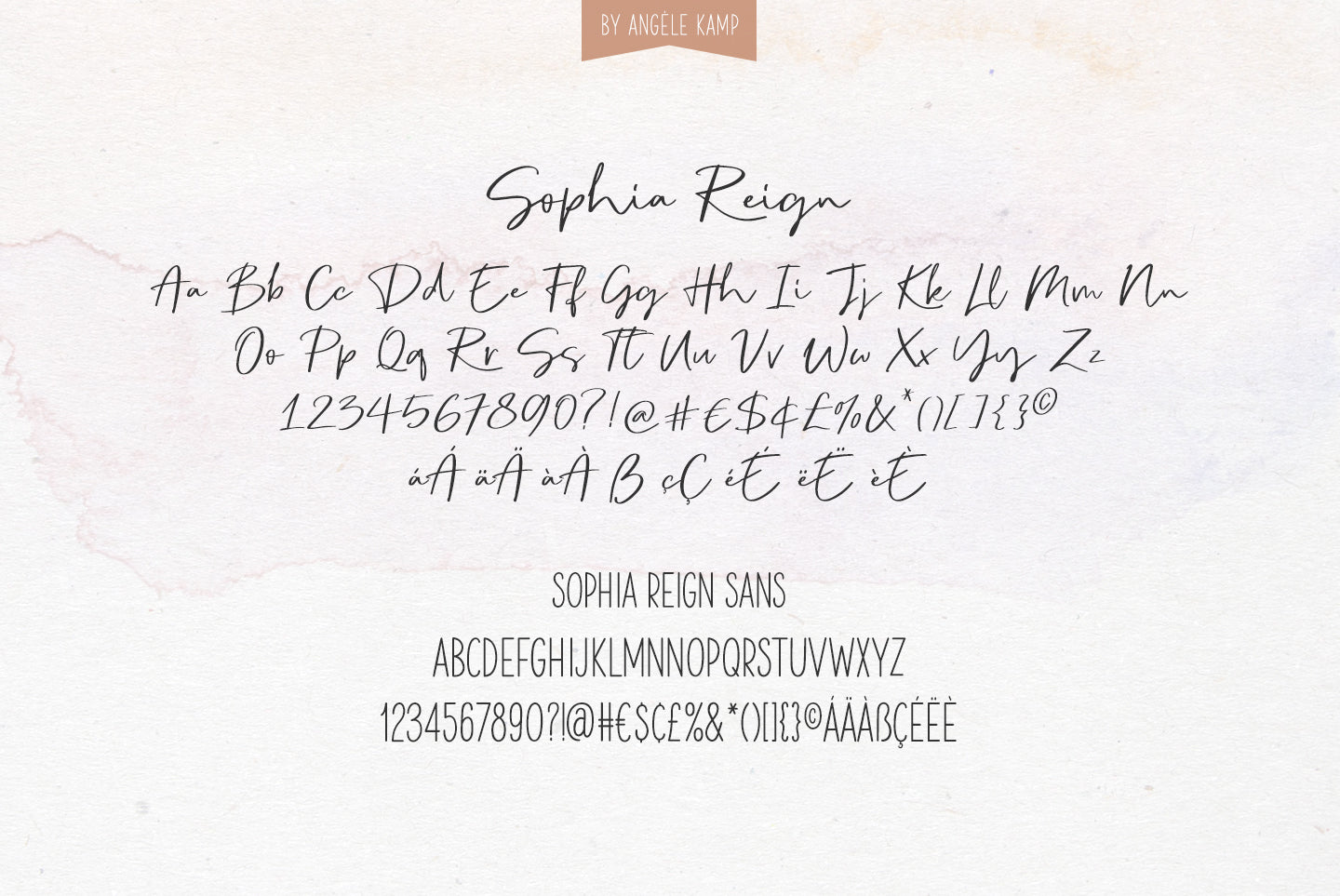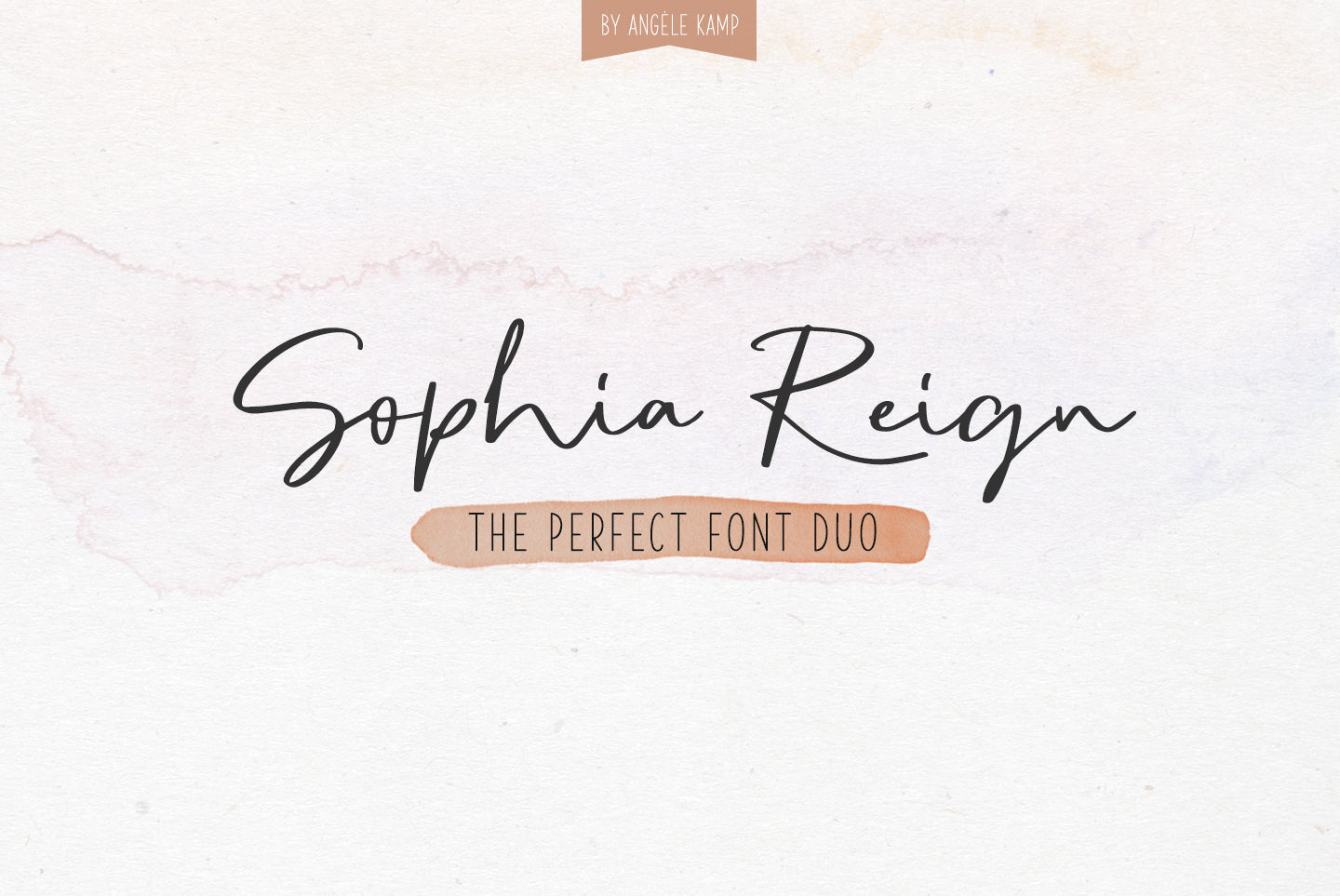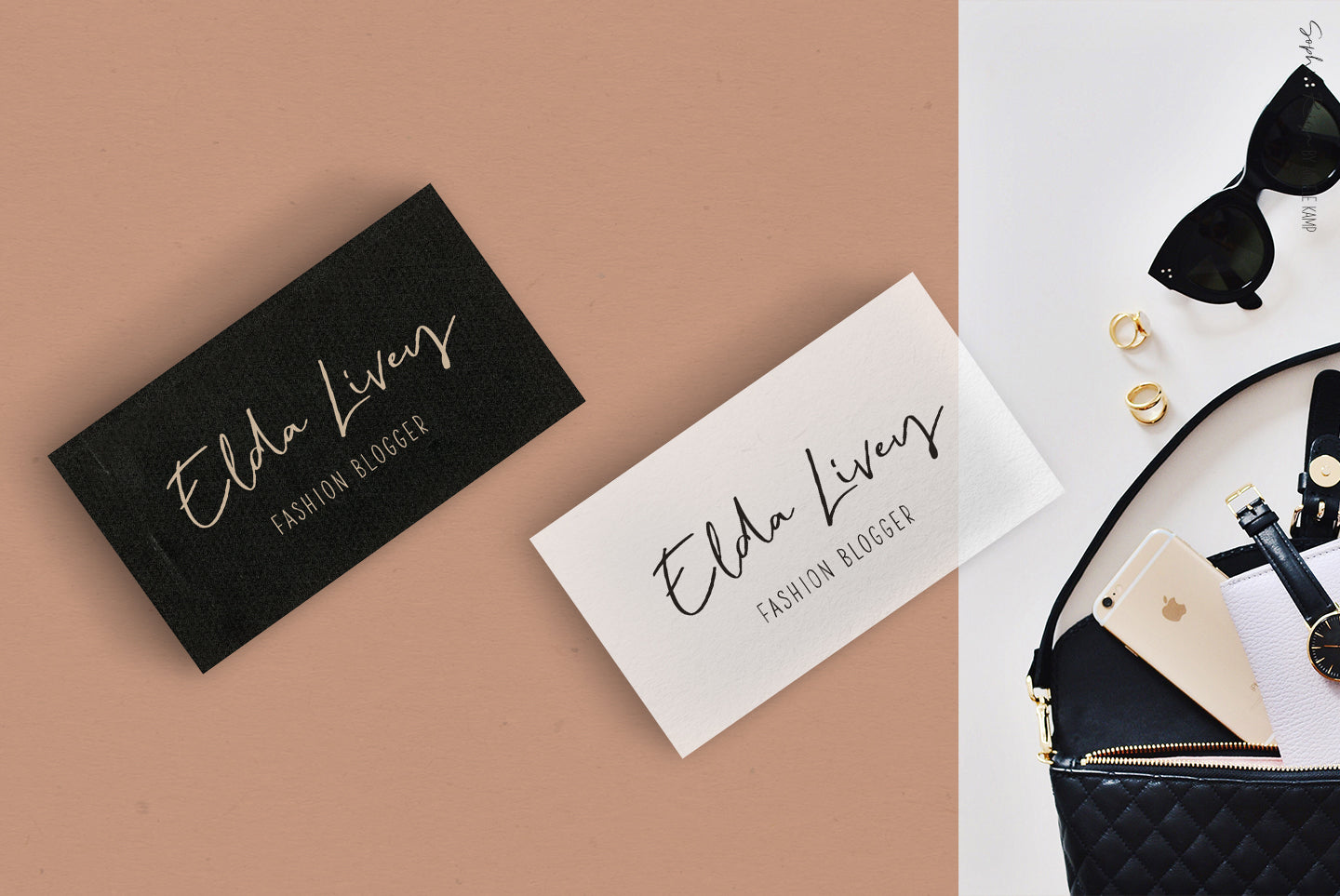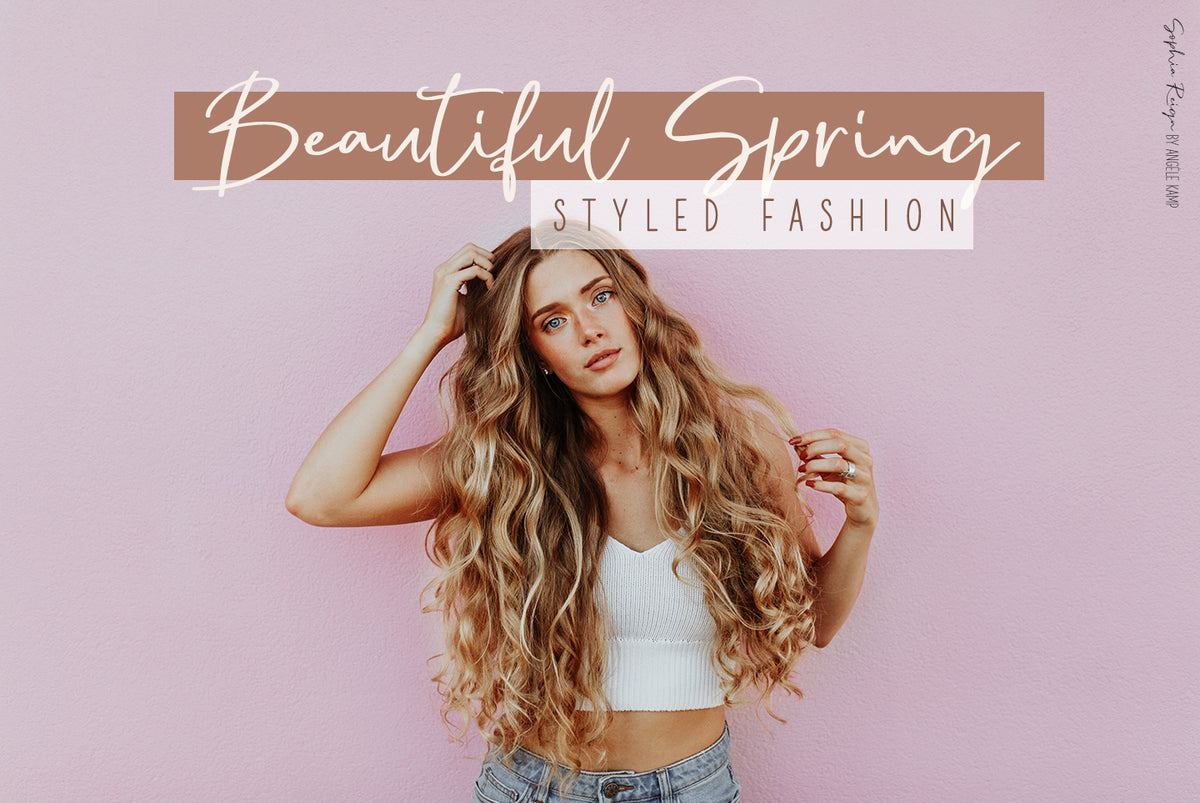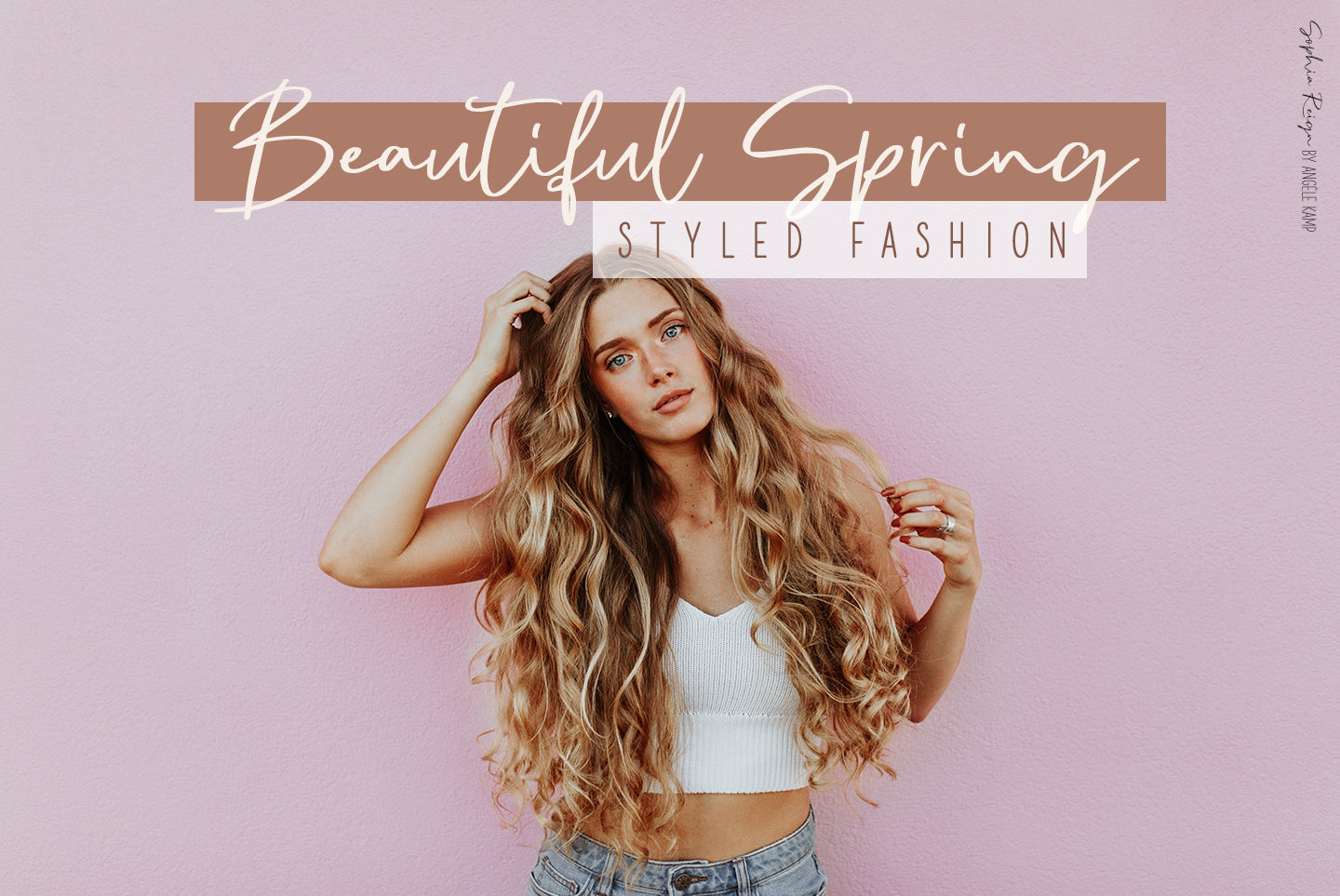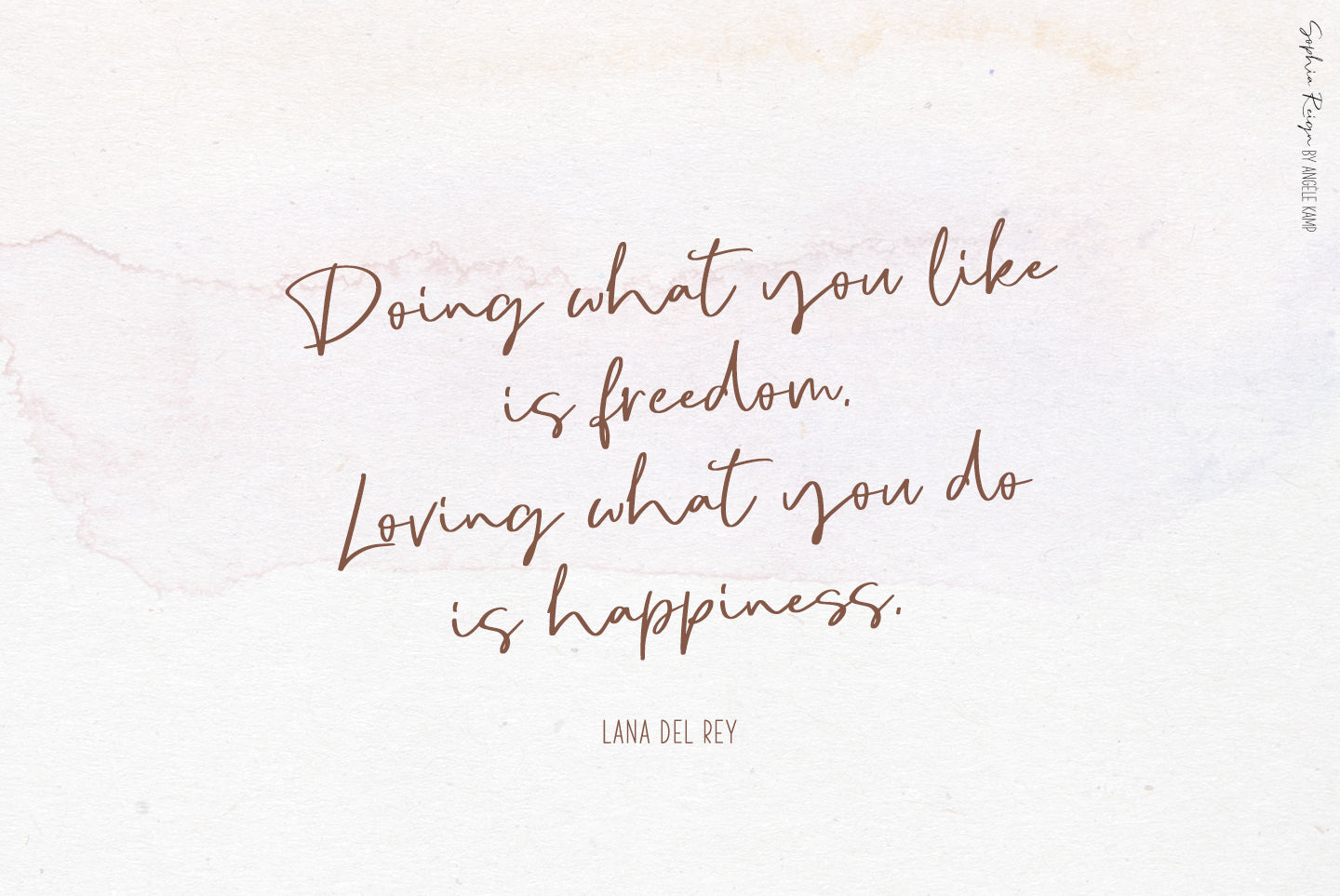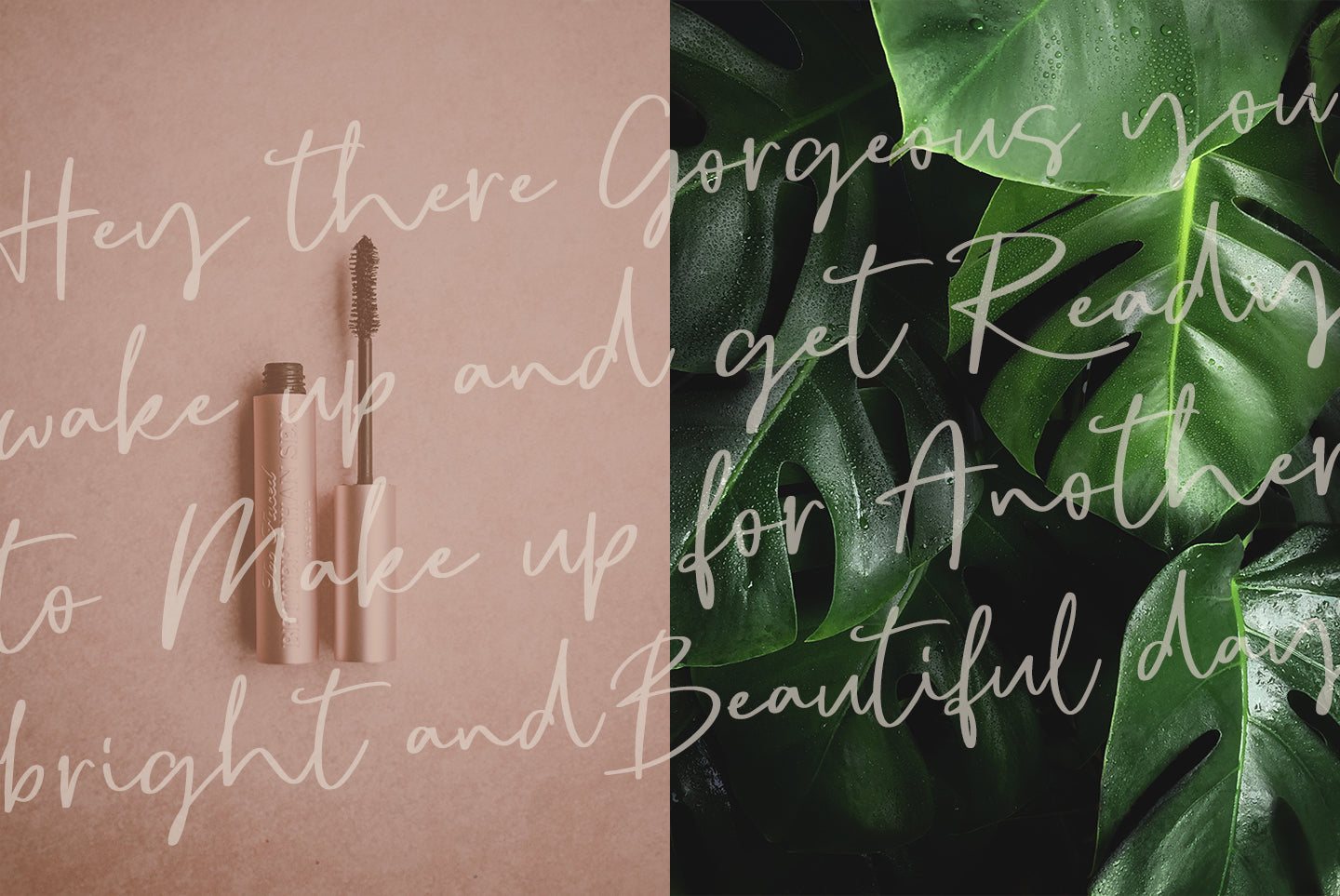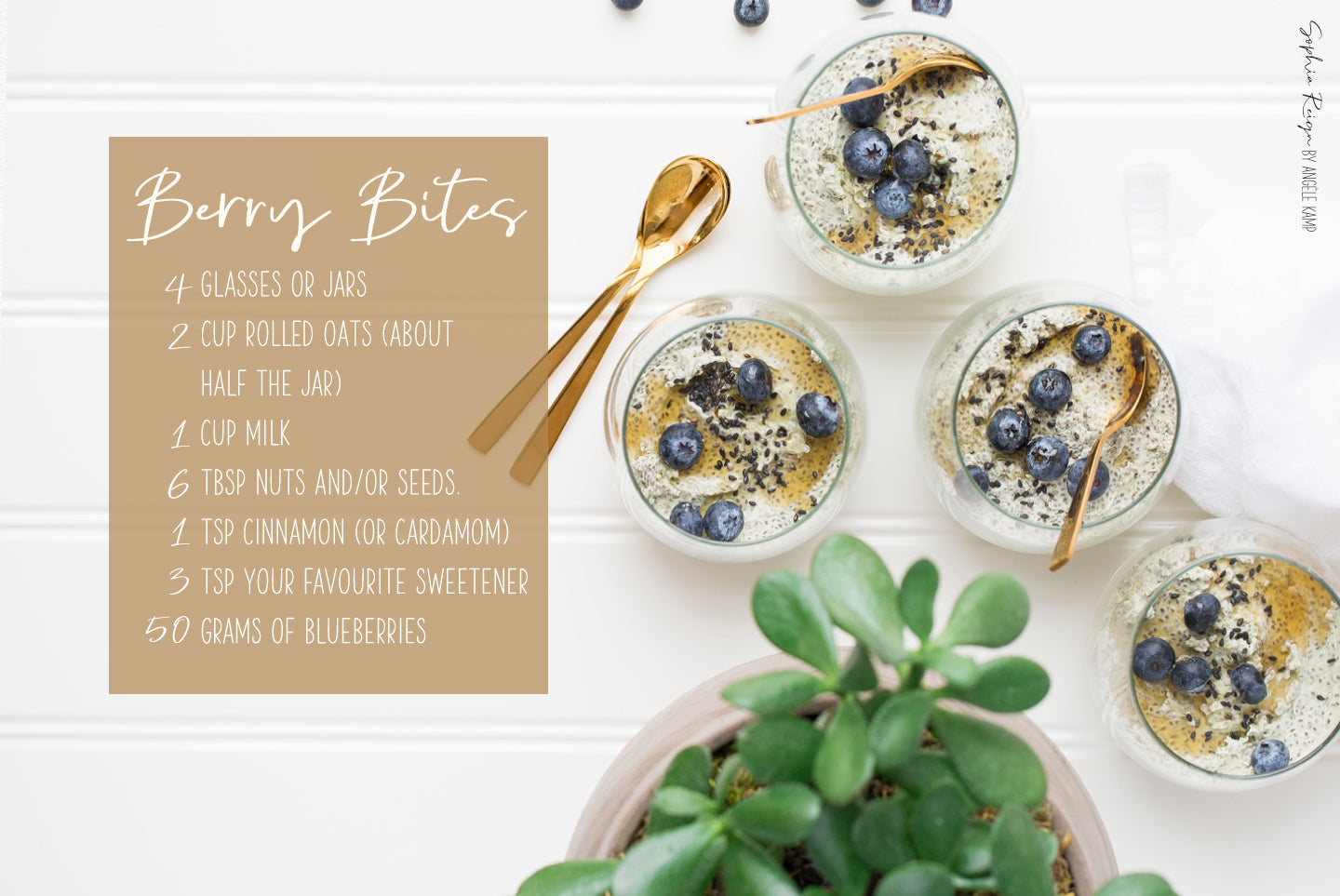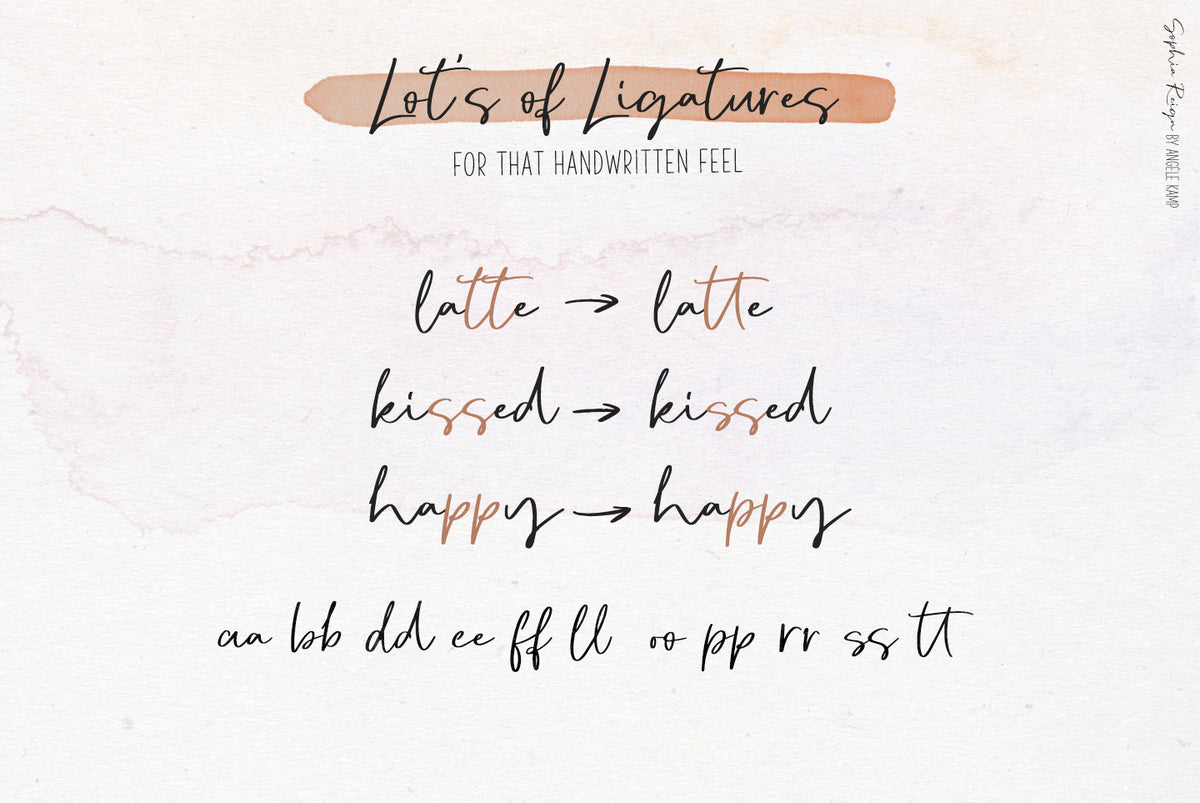
Sophia Reign Font duo
Meet Sophia Reign, the perfect font duo! She's got a handwritten signature font and an all-caps font that pairs perfectly with it. Use it for logos, magazines, Instagram quotes, branding, advertisements and more.
Sophia Reign - A signature font with lot's of ligatures for that handwritten feel
Sophia Reign Sans - An all-caps font that complements the signature font perfectly
All fonts include lowercase, uppercase, numbers, punctuation & international characters